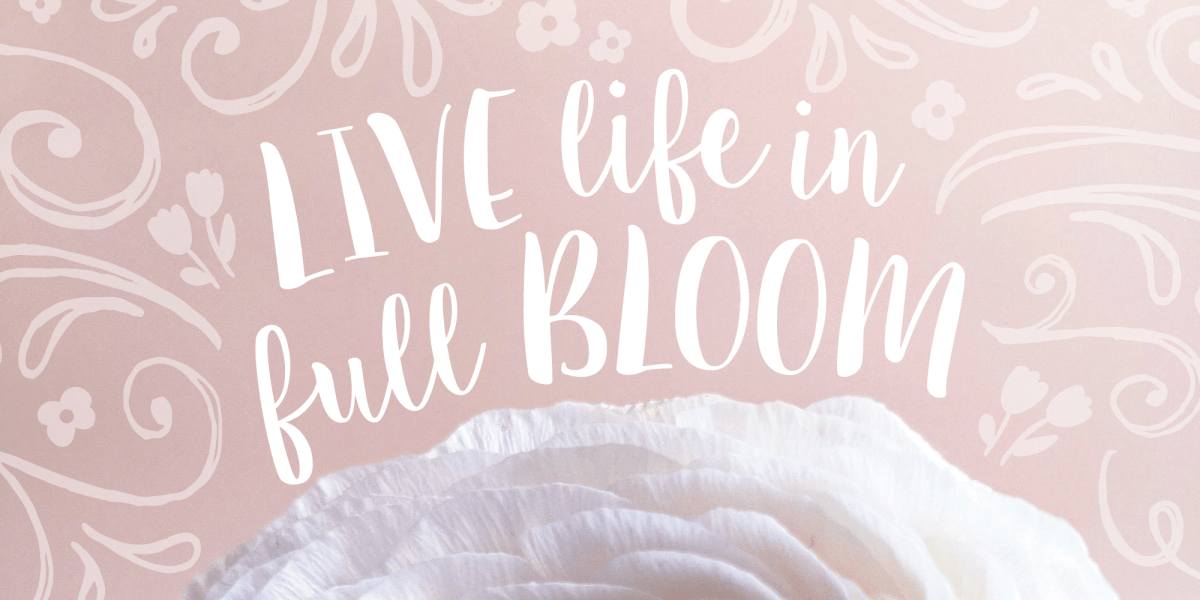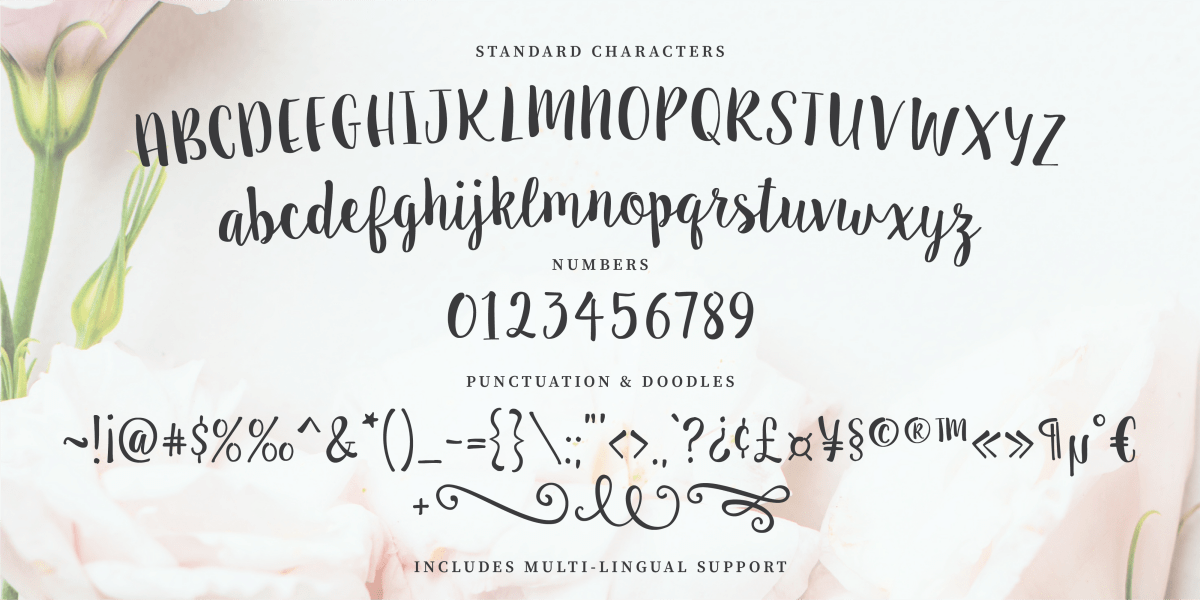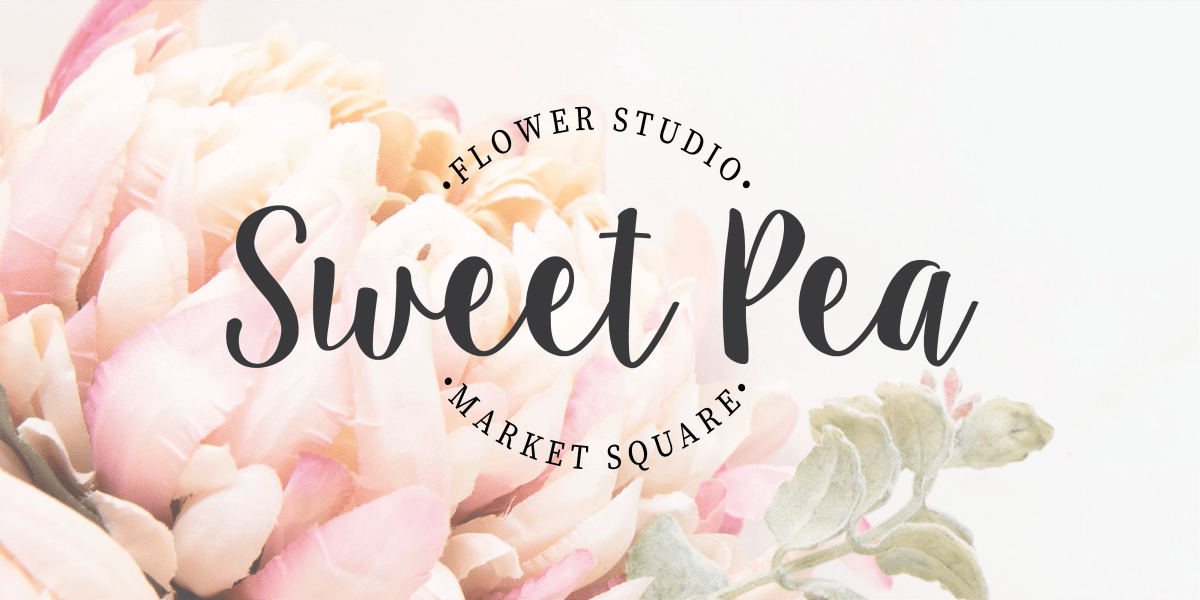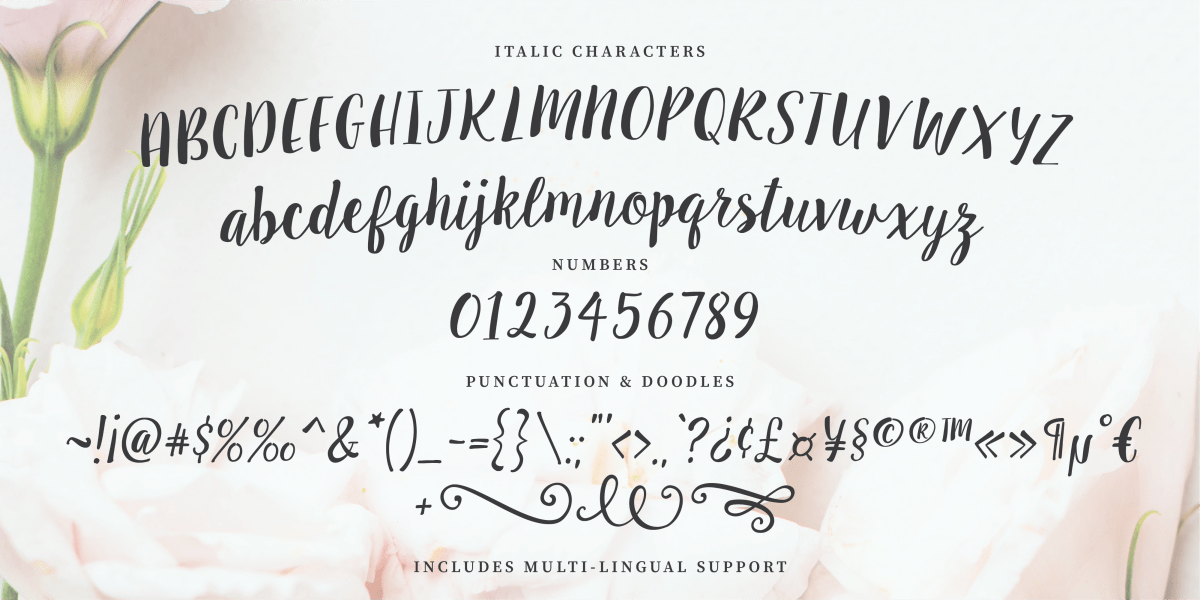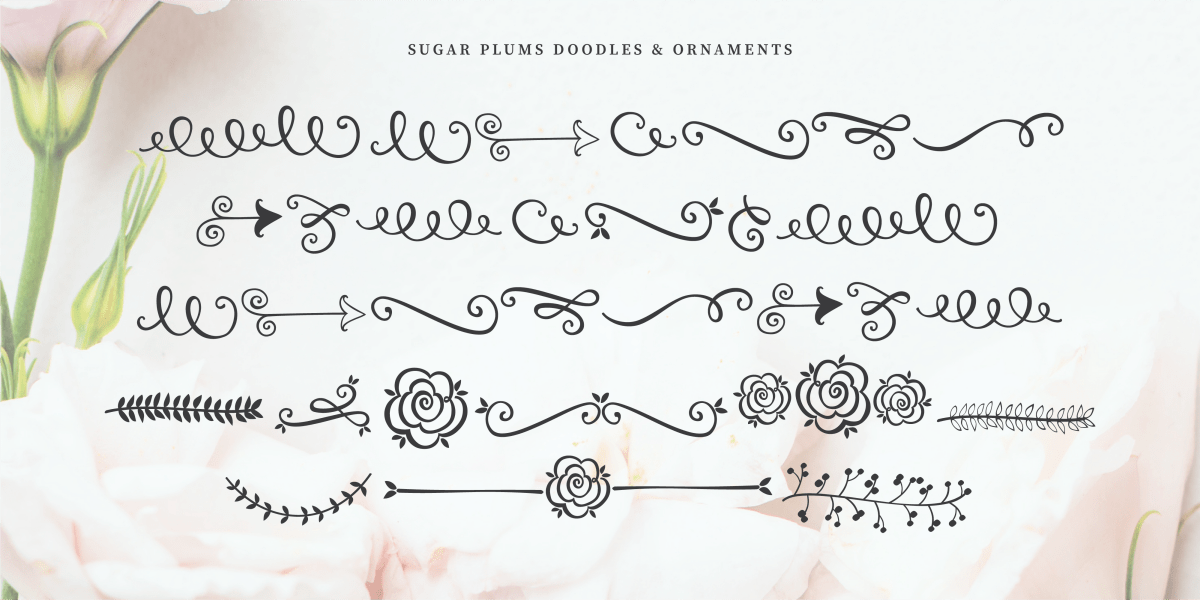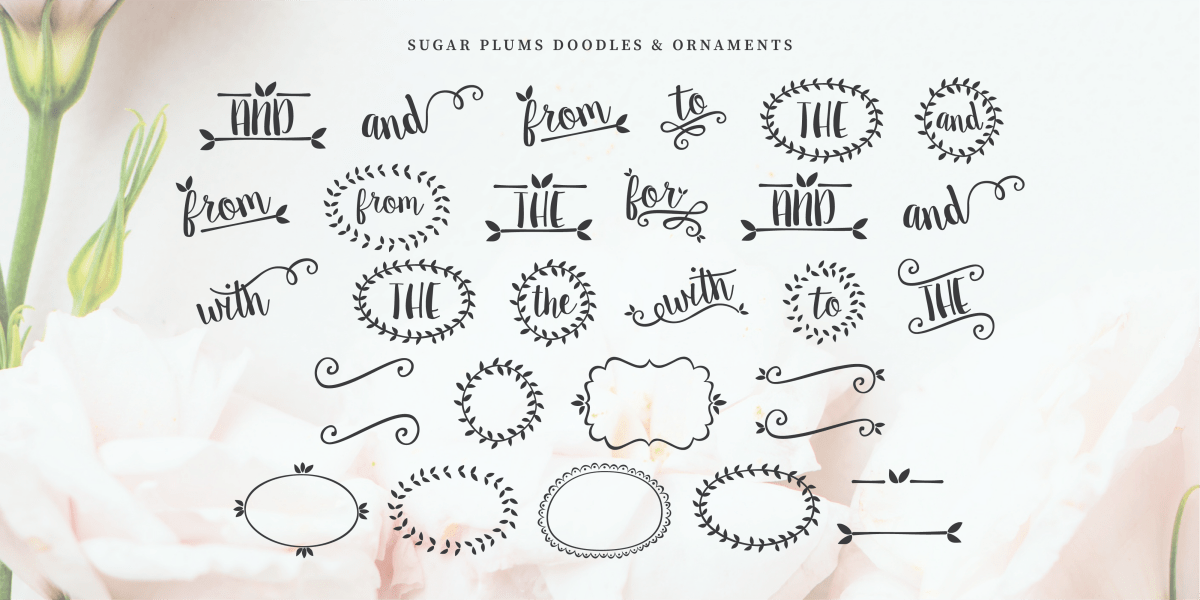
Sugar Plums
Font Family by Emily Spadoni
Including over 120 different hand-drawn characters for a range of languages and dialects. As well as an Italic version and over 60 hand-drawn ornaments, including leaves & flowers, catchwords, frames, doodles, and swirls.
*Looking for Sweet Pea? This is it!! Sweet Pea is a demo version of this font.